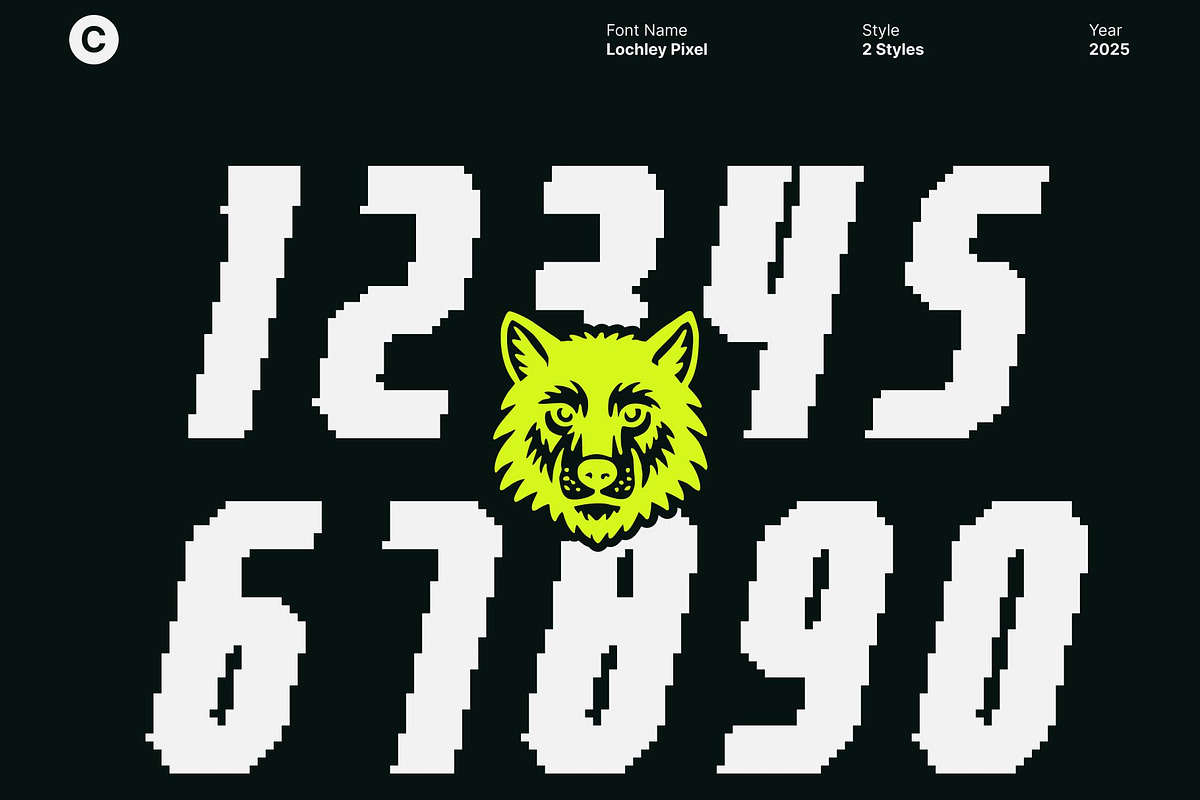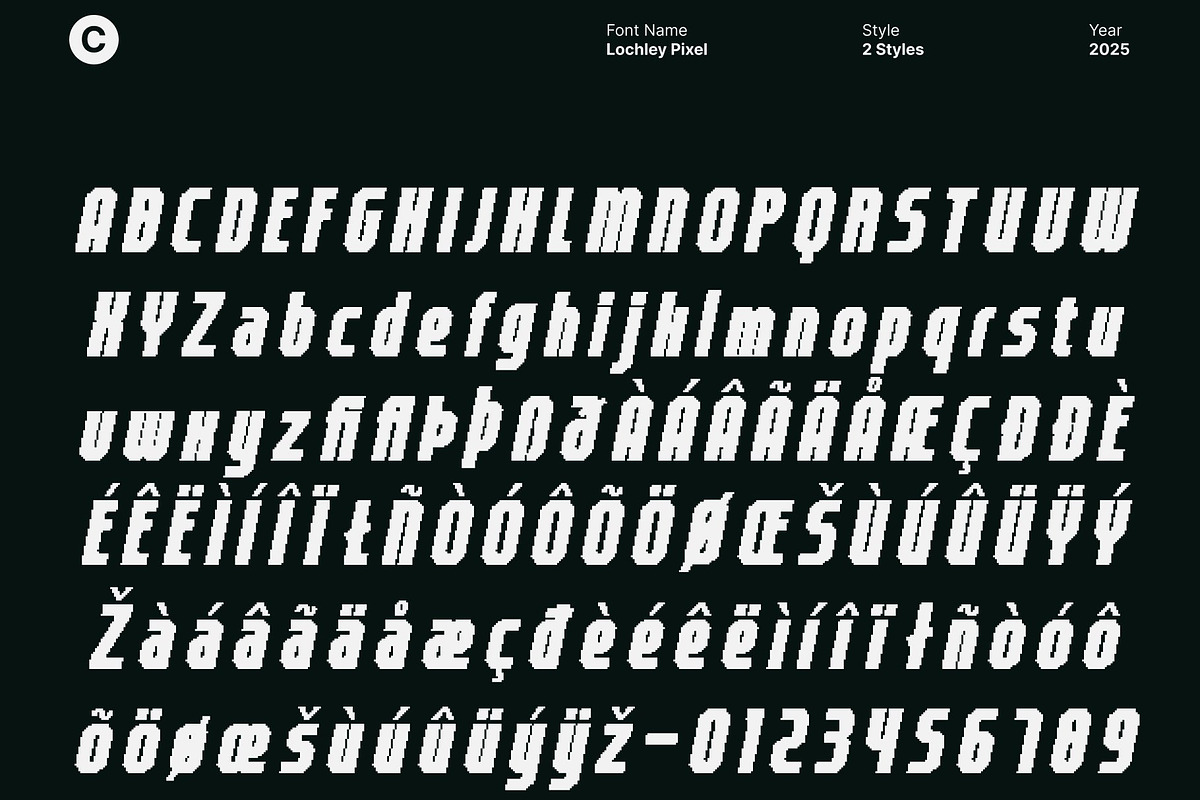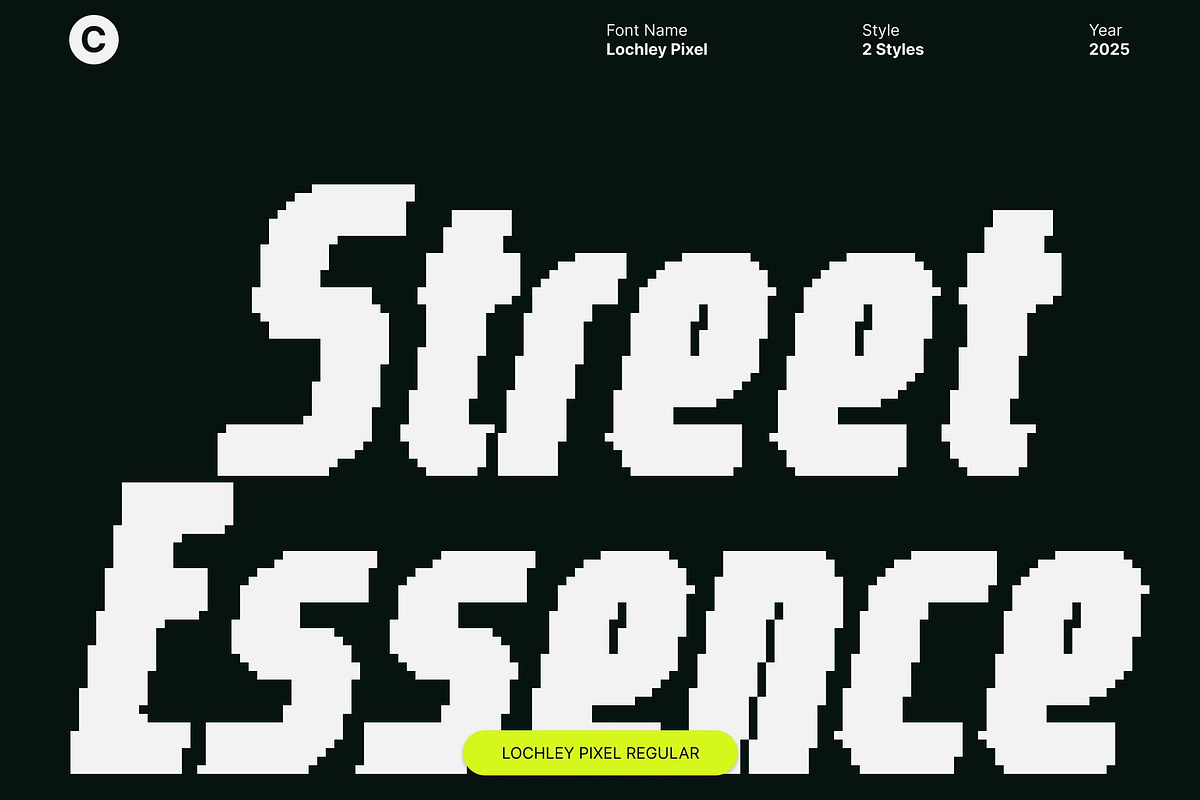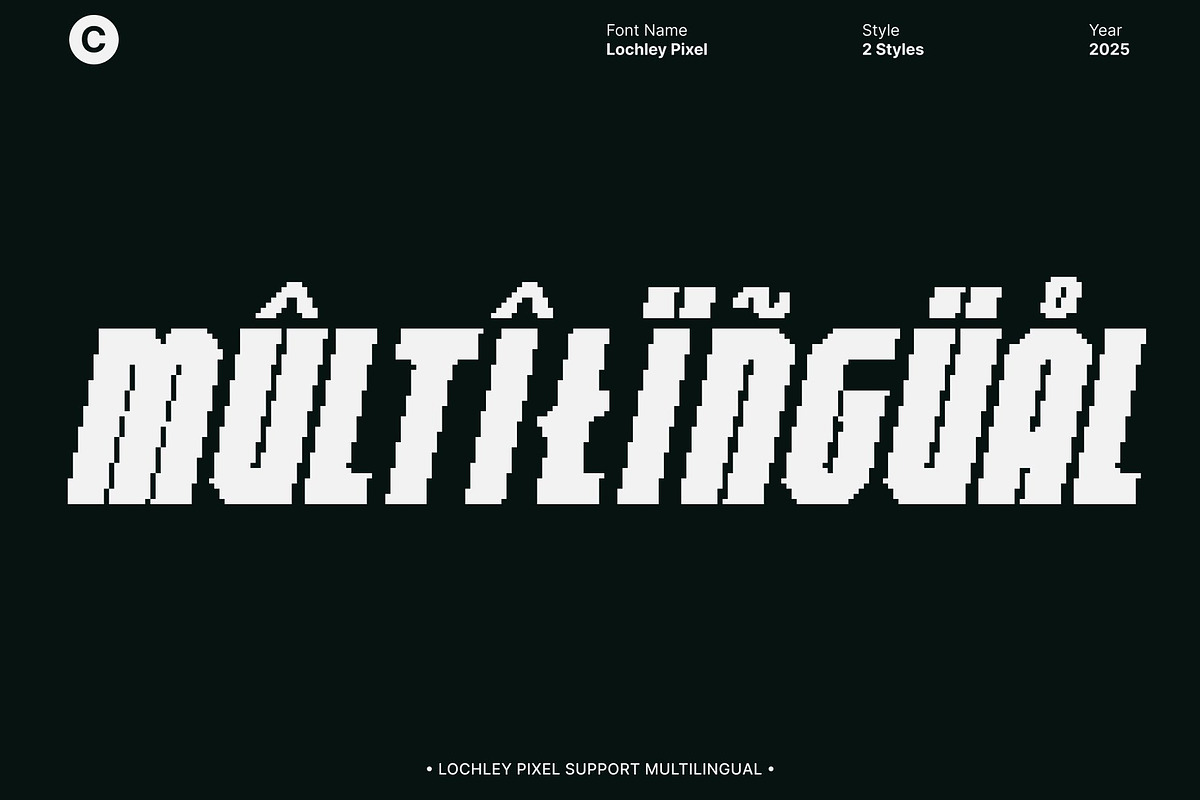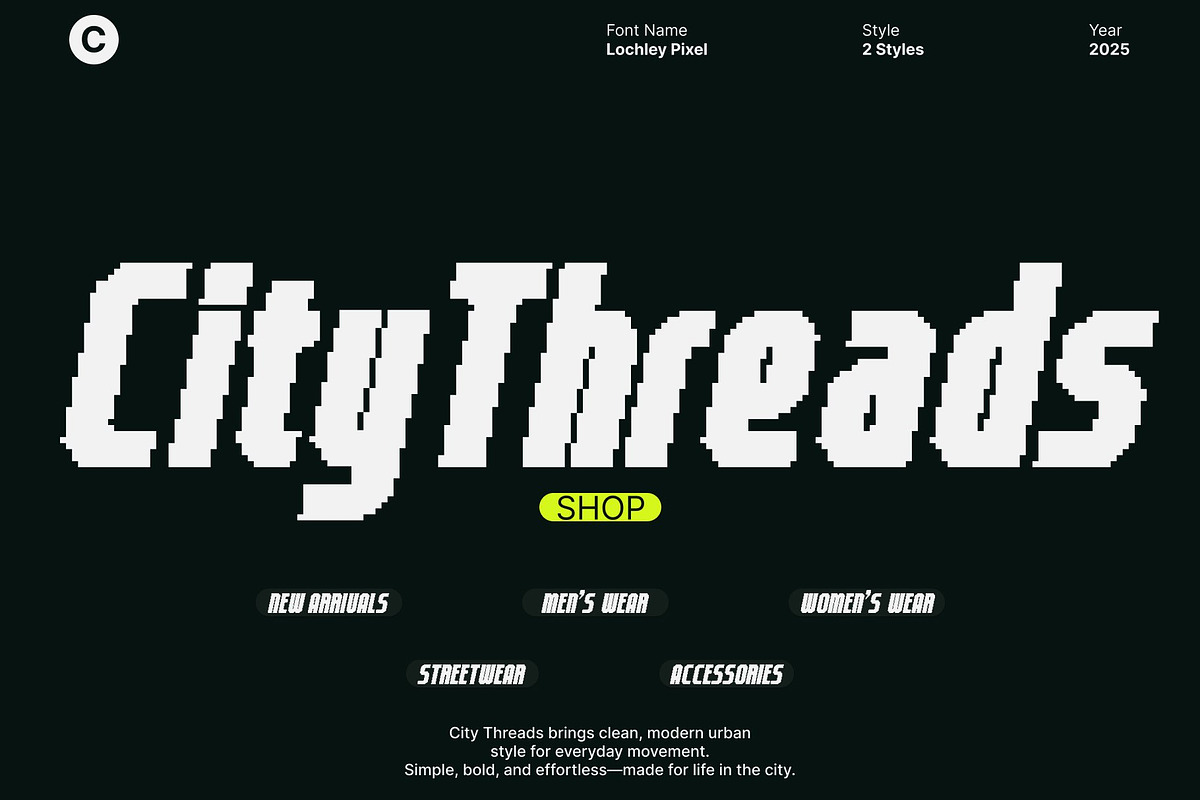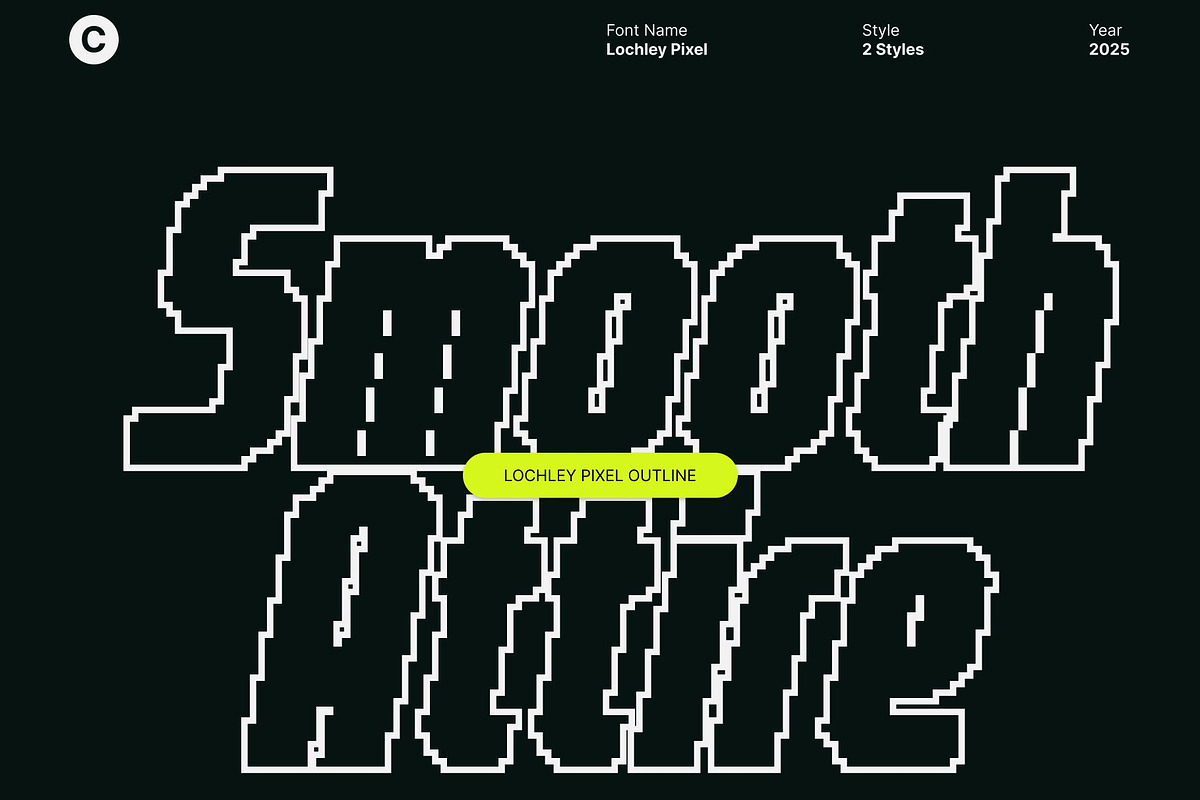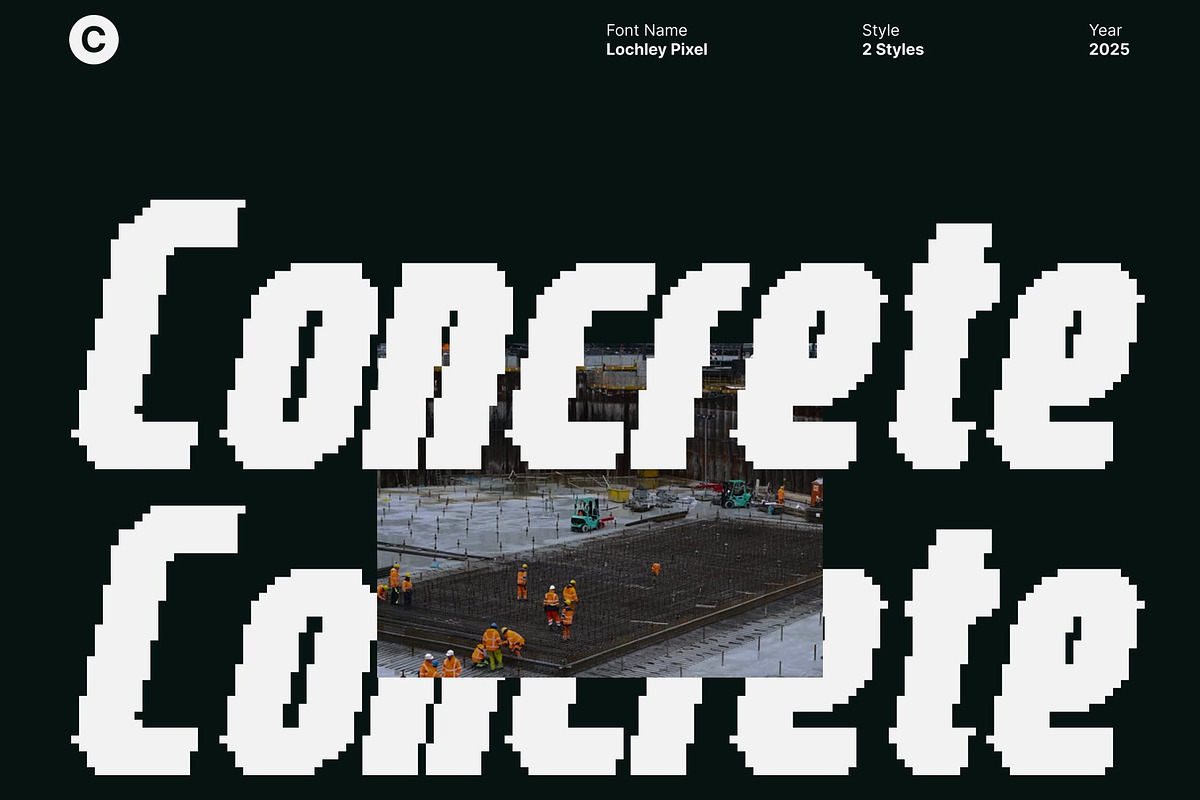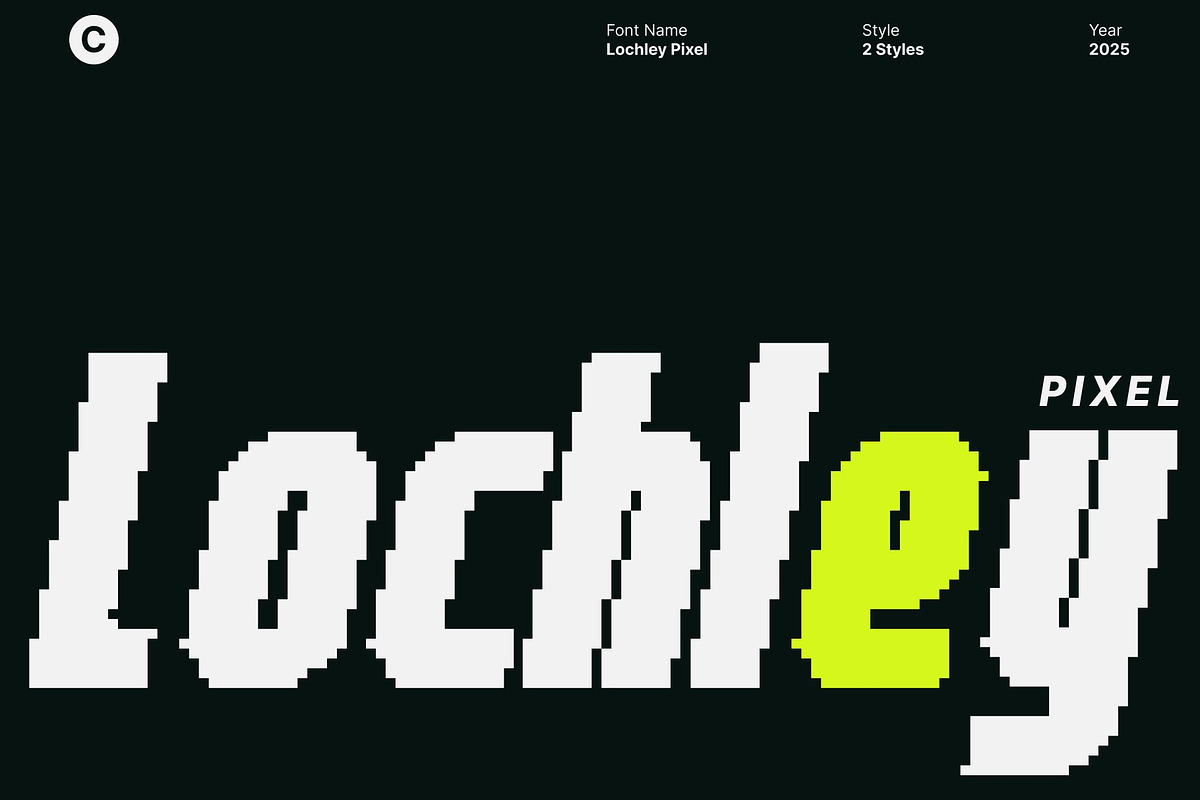
Lochley Pixel
Lochley Pixel – Condensed Industrial Sans Serif Display Font with Pixel Style
Bold, Condensed Design with Industrial Strength This is a powerful sans serif display font built with a condensed and bold structure that immediately commands attention. Its industrial-inspired design delivers a strong, masculine, and technical presence, making it perfect for posters, headlines, branding, and any project that requires a tough and impactful aesthetic.
Pixel Detailing for a Modern Digital Edge Infused with a blocky pixel style, this font transforms its industrial geometry into a visually dynamic digital form. The pixel elements add sharp geometric character and a modernized tech look, giving each letter a distinct digital identity suited for contemporary creative projects.
Strong Visual Presence for Maximum Impact The condensed form intensifies its boldness, allowing you to pack more power into limited space. Every character stands tall and solid, ensuring excellent readability while delivering dramatic visual weight. This makes it ideal for statement-making titles, energetic layouts, and designs that need to stand out instantly.
Perfect for Posters, Branding, and Modern Display Work Whether you’re crafting tech-driven branding, industrial-themed visuals, or creative display graphics, Lochley Pixel brings a modern and eye-catching style to your work. Its fusion of industrial strength, bold condensed shapes, and digital pixel detailing creates a standout typeface that captures attention, enhances modernity, and elevates any design with confident visual force.
- Lochley Pixel Regular
- Lochley Pixel Outline